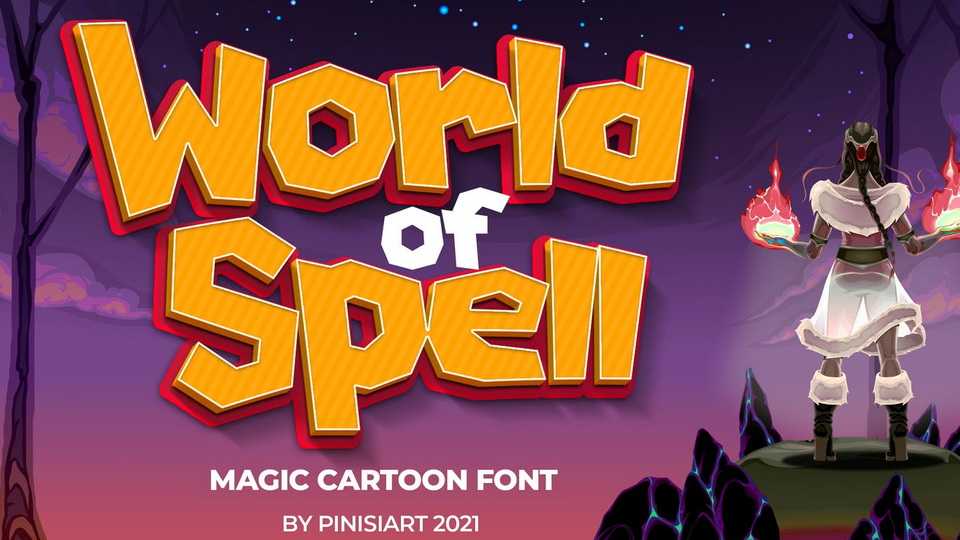
Download World of Spell font, a cartoon typeface full of magic, the world of imagination and creation where children are the group that stands at the top.